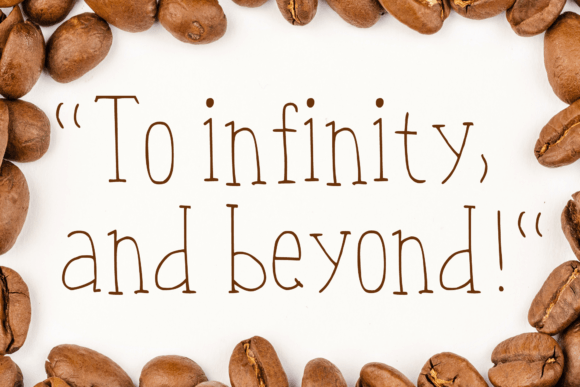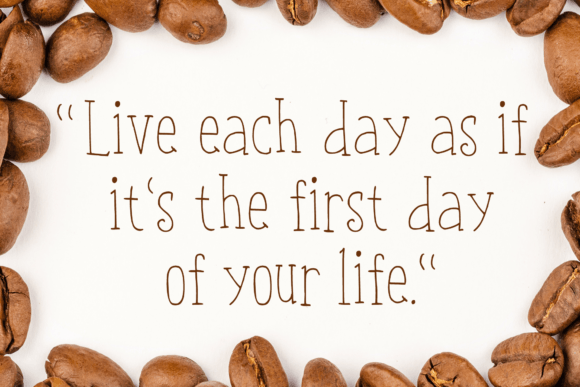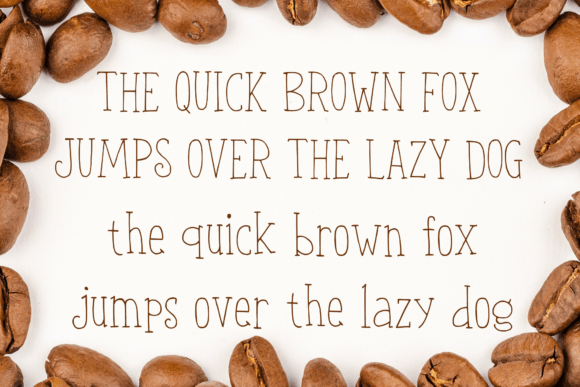
Coffee Break Font: The Perfect Addition to Your Design Arsenal
Are you tired of using the same old fonts in your designs? Look no further than the Coffee Break Font, a thin, versatile handwritten font that’s perfect for adding a casual touch to any project. In this article, we’ll dive into the world of Coffee Break Font and explore its features, benefits, and uses.
What is Coffee Break Font?
Coffee Break Font is a beautiful, handwritten font that’s designed to be incredibly versatile. Its thin lines and delicate curves make it perfect for a wide range of applications, from t-shirts and kids’ book designs to greeting cards, stickers, and posters.
Features of Coffee Break Font
- Thin and delicate lines: Coffee Break Font features thin, delicate lines that give it a light and airy feel.
- Versatile style: This font is designed to be versatile, making it perfect for a wide range of applications.
- Handwritten feel: Coffee Break Font has a warm, handwritten feel that’s perfect for adding a personal touch to your designs.
- Easy to read: Despite its thin lines, Coffee Break Font is easy to read, making it perfect for body text and headlines.
Benefits of Using Coffee Break Font
So why should you use Coffee Break Font in your designs? Here are just a few benefits:
- Adds a personal touch: Coffee Break Font’s handwritten feel adds a personal touch to your designs, making them stand out from the crowd.
- Perfect for casual designs: This font is perfect for casual designs, such as t-shirts, stickers, and posters.
- Versatile: Coffee Break Font can be used for a wide range of applications, from kids’ book designs to greeting cards.
- Easy to pair with other fonts: Coffee Break Font pairs well with other fonts, making it easy to create unique and interesting combinations.
Uses for Coffee Break Font
So what can you use Coffee Break Font for? Here are just a few ideas:
- T-shirts and apparel: Coffee Break Font is perfect for designing t-shirts, hoodies, and other apparel.
- Kids’ book designs: This font is great for kids’ book designs, such as storybooks, activity books, and more.
- Greeting cards and invitations: Coffee Break Font is perfect for designing greeting cards, invitations, and other stationery.
- Stickers and posters: This font is great for designing stickers, posters, and other promotional materials.
Tips for Using Coffee Break Font
Here are a few tips for using Coffee Break Font in your designs:
- Use it for headlines and body text: Coffee Break Font is easy to read, making it perfect for both headlines and body text.
- Pair it with other fonts: Experiment with pairing Coffee Break Font with other fonts to create unique and interesting combinations.
- Use it for digital and print designs: Coffee Break Font can be used for both digital and print designs, making it a versatile addition to your font library.
In conclusion, Coffee Break Font is a versatile and beautiful handwritten font that’s perfect for adding a casual touch to your designs. Its thin lines, delicate curves, and handwritten feel make it perfect for a wide range of applications, from t-shirts and kids’ book designs to greeting cards, stickers, and posters. With its ease of use, versatility, and unique style, Coffee Break Font is a must-have for any designer or crafter looking to add a personal touch to their designs.
So why not give Coffee Break Font a try? Fall in love with its incredibly versatile style, and use it to create lovely designs that stand out from the crowd.